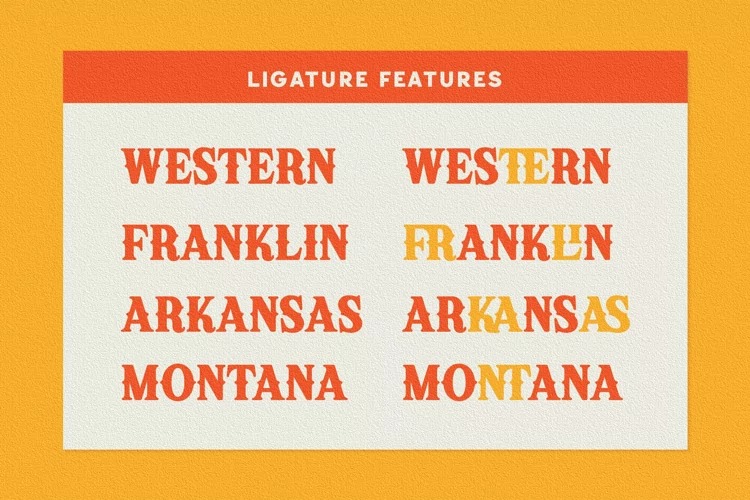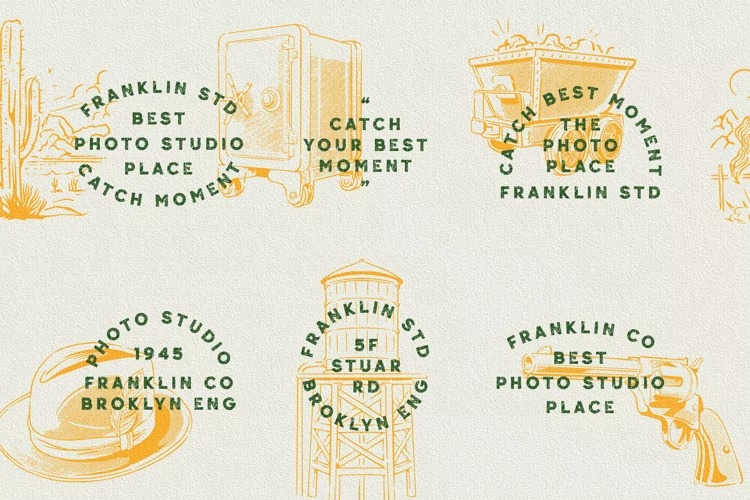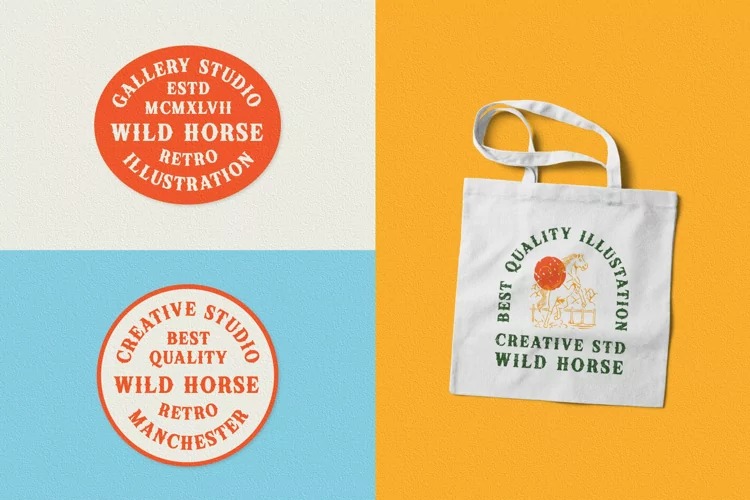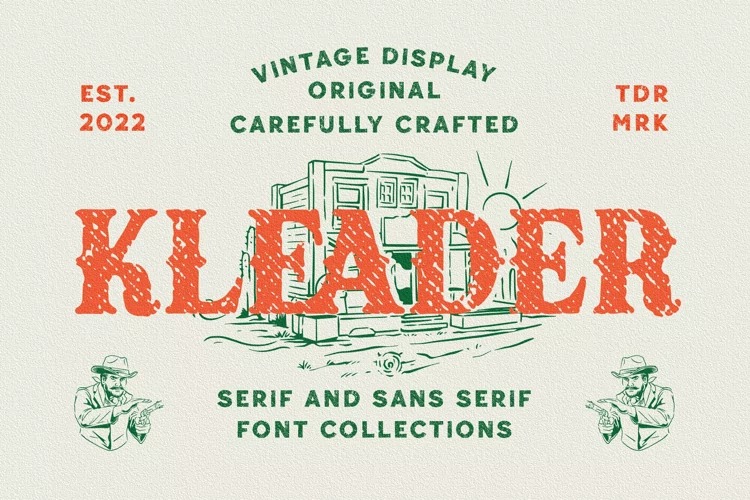
Kleader Font
Kleader Display Font is a classic display typeface inspired by the vintage design on the circus and festival signage. These font collections contain serif and sans serif fonts. Every font comes with 3 style typefaces (regular, rough and stamp). Kleader gives more extras 1 pack illustrations. This font includes some ligatures. The Kleader matches apply in some designs such as the logo, poster, label, badge, packaging, t-shirt, branding, quotes and more custom design.